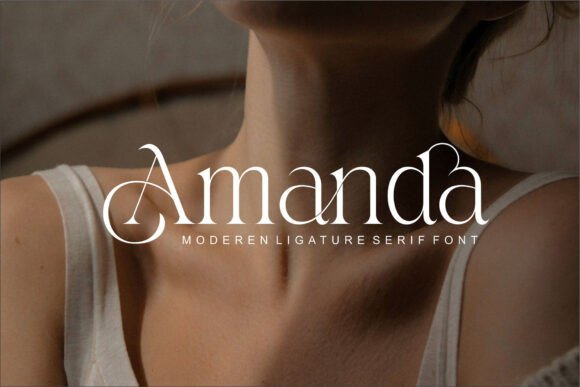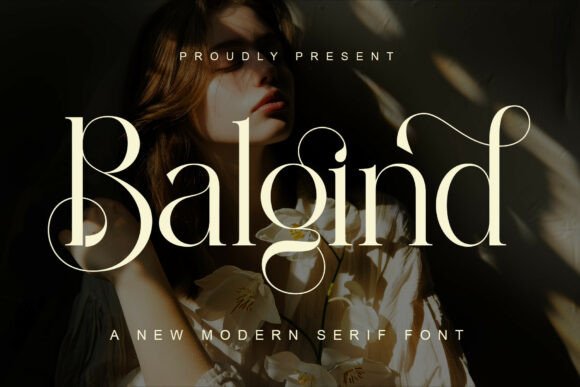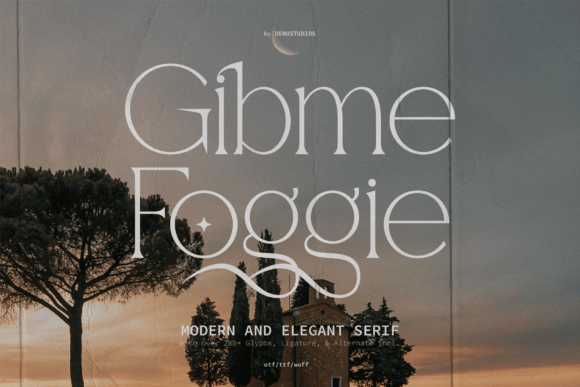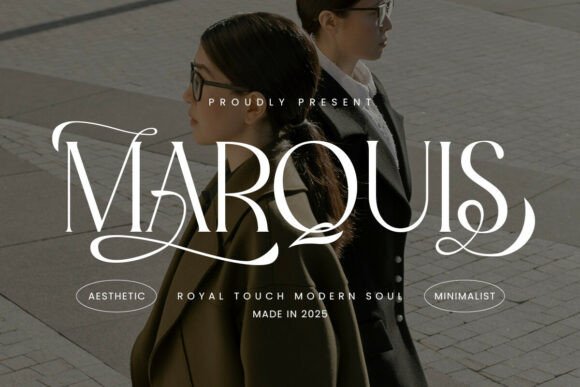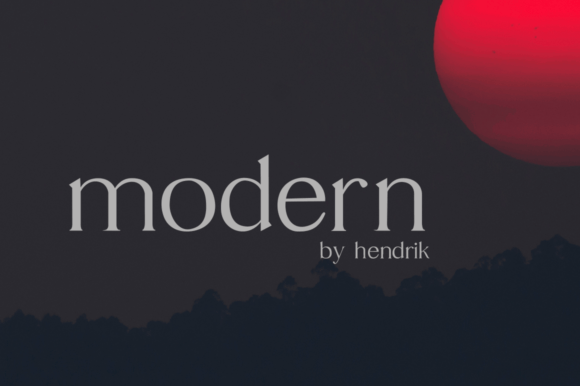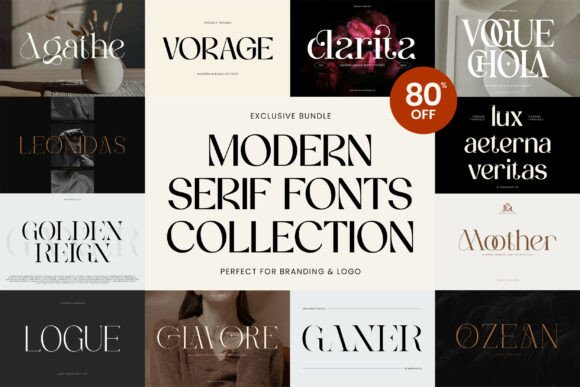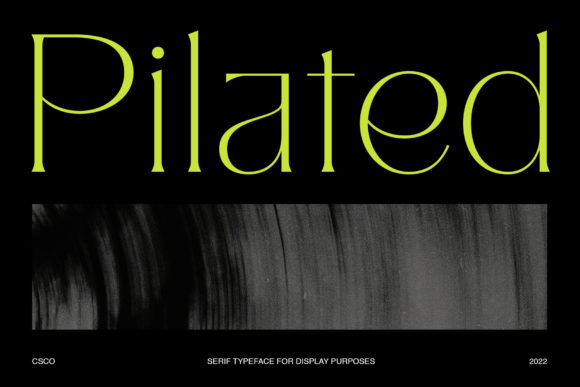
Fresh & Modern: 14 new fonts every designer needs to see
As a designer, I know that the right typeface does more than just display words . It sets a mood, establishes a brand, and captures attention instantly. In an industry that thrives on innovation, staying inspired means constantly exploring fresh design tools. That is why I am always on the hunt for the latest releases to feature here on the blog.
Today, we are diving into a curated selection of the most exciting creative fonts on the market. If you are looking to elevate your next project with unique letterforms and fresh personalities, you have come to the right place. We will explore a variety of new fonts that break the mold, from expressive display typefaces to clean modern fonts perfect for branding.
Get ready to refresh your library and discover your new favorite digital asset.
Modern Font
When sophistication meets digital age design, you get a typeface like Modern. I recently added this gem to my toolkit, and it has quickly become my secret weapon for projects that need to whisper elegance rather than shout for attention. It is a classy serif with a contemporary edge – traditional enough to feel established, yet fresh enough to avoid looking vintage or stuffy.
What I love most about Modern is its incredible versatility. The unique letterforms add character without sacrificing readability, making it perfect for high-end branding, editorial layouts, or even striking movie titles. Whether I am designing a logo for a luxury fashion brand or laying out a magazine spread, this font delivers that polished, editorial feel effortlessly. If you want to elevate your next project with a refined serif that stands out, you need to try Modern for yourself.
Balgind Modern Serif Font
There is something truly special about a font that feels both organic and impeccably structured, and Balgind achieves that balance beautifully. This luxurious modern serif arrived in my library just in time for a fashion lookbook project, and I was immediately struck by its feminine elegance and refined details.
Inspired by blooming florals, Balgind carries that same natural grace into its letterforms. The elegant ligatures create a seamless flow between characters, giving any wordmark a custom, handcrafted feel. It is bold enough to command attention on a luxury packaging design, yet soft enough for a wedding invitation or lifestyle blog. I also appreciate the multilingual support and easy PUA encoding. It works right out of the box in Illustrator or Photoshop. If you want to infuse your next branding project with timeless sophistication and a fresh modern edge, you need to experience Balgind.
Marquis
Every now and then, a font comes along that perfectly bridges the gap between old-world charm and contemporary minimalism. Marquis is that font for me right now. It is a modern serif with a clean, almost architectural soul, yet it never feels cold – thanks to those graceful curves and thoughtful fine details.
What I appreciate most as a designer is its restraint. Marquis doesn’t need to shout; it lets the elegance of the letterforms speak for themselves. The stylish ligatures add a bespoke quality to logos, while the overall clean structure keeps editorial spreads looking crisp and professional. It is versatile enough to swing from feminine branding to modern classic print work without missing a beat. If you are searching for a typeface that feels luxurious yet effortlessly clean, Marquis deserves a spot in your collection.
Chanceux Modern Stylish Serif Font
There is a certain magic that happens when a typeface feels both handwritten and meticulously refined. Chanceux captures that magic perfectly. This modern stylish serif has become my go-to for projects that need a personal, human touch without sacrificing professional polish.
The first thing you notice is its elegant flow – each character carries a natural handwriting quality that makes branding feel approachable and authentic. Yet the construction is solid enough for high-end product packaging and editorial use. I have already used it for wedding invitation suites and social media campaigns, and it shines everywhere. The PUA encoding is a huge bonus too; accessing all those beautiful glyphs and swashes takes seconds, giving me endless creative options without the technical headache. Whether you are designing a delicate label or a standout logo, Chanceux brings that effortless sophistication.
Modern Maddison Font
The distinctive strokes give each character its own personality, making every word feel thoughtfully crafted. I have found it incredibly versatile for creative projects that need warmth and approachability, from craft branding to lifestyle content. The natural flow works across Windows and open-source platforms without any hiccups, which is always a bonus when I am moving between different tools.
As we wrap up, I hope these modern serifs spark your next creative project. From timeless elegance to bold contemporary statements, each font offers a unique voice waiting to bring your designs to life. Typography is the soul of great design – choose wisely, experiment boldly, and keep creating.